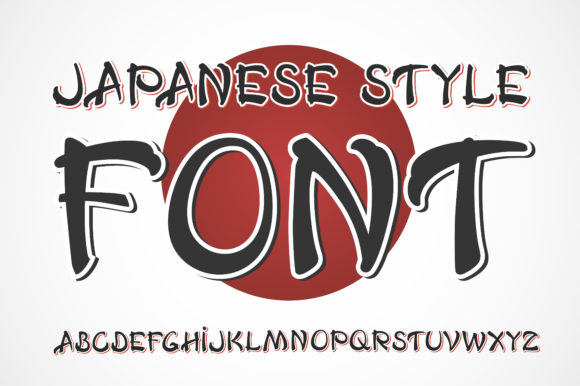
Introducing the Japanese Font, the best font for Asian food that will add a unique and authentic touch to your designs. Created by the talented team at Fractal Font Factory, this display font is bold, daring, and full of personality.
If you're looking to create designs that capture the essence of Asian cuisine, this font is a must-have. With its clean and sharp edges, it evokes the elegance and sophistication of Japanese culture.
Whether you're a food blogger, a graphic designer, or a restaurant owner, the Japanese Font is the perfect addition to your font collection. It's versatile enough to be used in menus, signage, packaging, and more.
But the Japanese Font is not just a font; it's a story waiting to be told. Its unique design is inspired by the intricate details of traditional Japanese calligraphy. When you use this font, you're not just adding a new typeface to your designs; you're adding a piece of art.
Incorporating the Japanese Font into your designs will instantly transport your audience to the vibrant and bustling streets of Tokyo. It will make them crave the delicious flavors of sushi, ramen, and tempura.